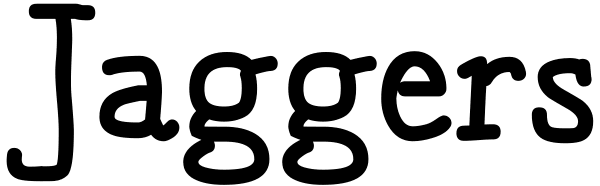
Jaggers
Jaggers is a handwritten typeface based on the letterforms Caslon. It may be hard to see the resemblance between these two since Jaggers is such a unique font. Its casual appearance is charming and easy to read. Jaggers has an expanded character set...